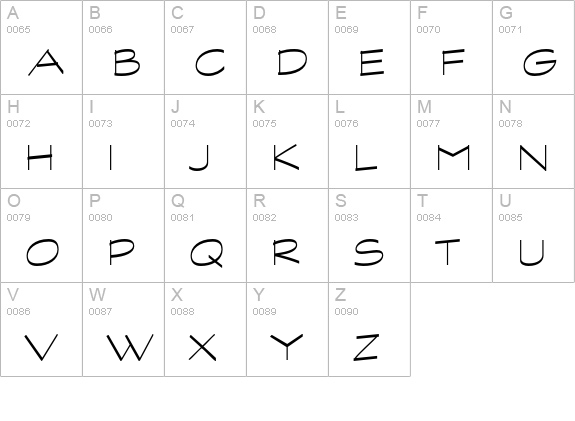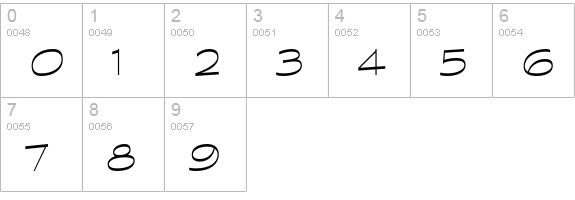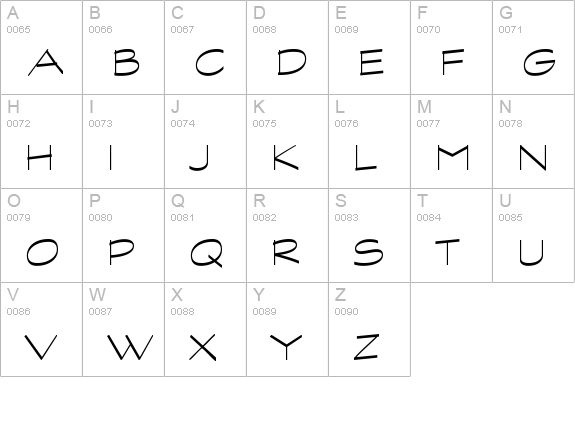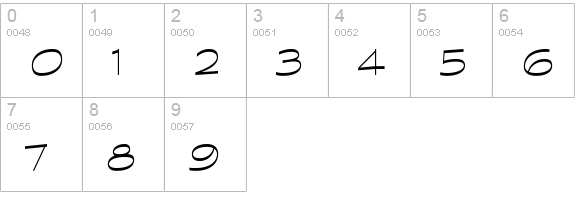
Graphite Std Light Wide Font Details
Graphite Std Light Wide is a refined, elegant, extended-width variant in the Graphite typeface family \xE2\x80\x94 well suited to elegant body text, refined sub-headings, and luxury branding.
Graphite Std Light Wide is a modern and elegant font that exudes sophistication and style. With its clean lines and spacious letterforms, this typeface offers a light and airy feel that is perfect for a variety of design projects. Whether you're creating a sleek website, designing a chic logo, or crafting a stylish poster, Graphite Std Light Wide is sure to make a statement. What's even better is that this stunning font is available for free download at FontsMarket.com. Yes, you read that right - you can easily access and use Graphite Std Light Wide without spending a penny. So why wait? Elevate your designs with this exquisite typeface today and watch your projects shine with a touch of timeless elegance.